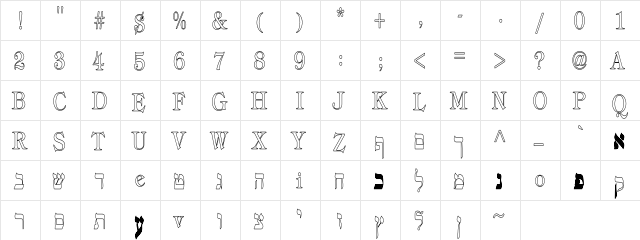
HebrewHC Regular
Design Context for HebrewHC Typeface
HebrewHC takes a measured approach to typography — its balanced proportions and neutral character make it a reliable workhorse for both digital and print work.